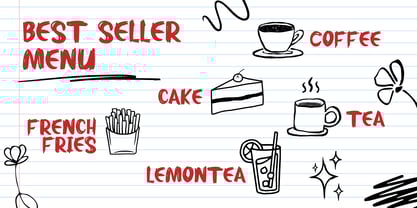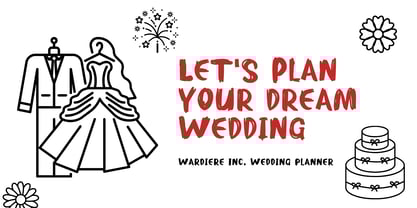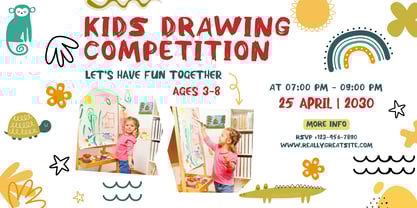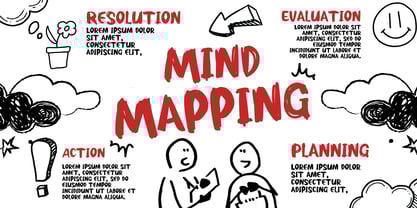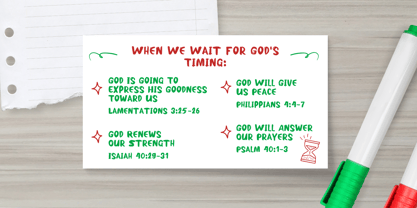
Scribble marker
by Beary
The Scribble marker Font Family was designed by Dian Haniffan Hadi and published by Beary. Scribble marker contains 1 styles. More about this family
Scribble Marker is a natural and playful handwritten font that captures the charm of spontaneous marker strokes. Designed to feel as if each letter was drawn by hand, this font adds warmth and personality to your projects.
What makes Scribble Marker special? Its organic, free-flowing design is perfect for anyone looking to add a personal touch to their creations. Whether you're designing posters, creating social media content, or working on branding projects, Scribble Marker brings a lively and approachable feel to your work.
With its natural strokes and unique character, Scribble Marker ensures your message stands out while staying authentic and inviting. Let Scribble Marker turn your words into an artful expression!